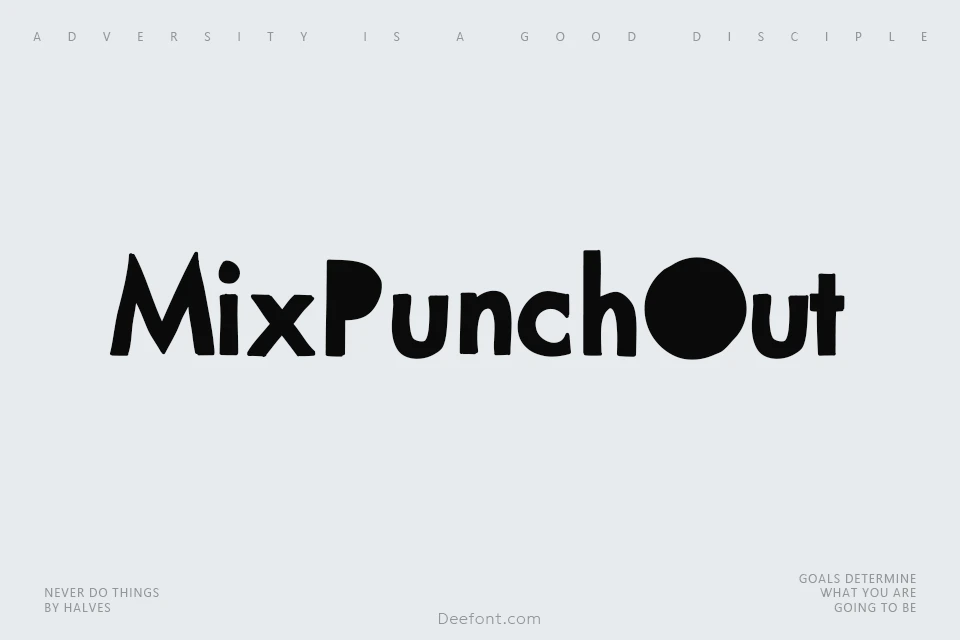
Mix Punch Out Font
Mix Punch Out Font is an aesthetic typeface designed by Mikko Sumulong that brings a distinctive and playful character to creative designs. The font family includes uppercase and lowercase letters, numbers, and special characters, making it versatile for various applications. Its unique style combines modern aesthetics with a punch-out effect, making it particularly suitable for fun and eye-catching designs. While the font is free for personal use, it requires proper licensing for commercial applications. The character set includes A-Z, a-z, numbers 0-9, and various special characters, providing designers with a comprehensive toolkit for creative typography.